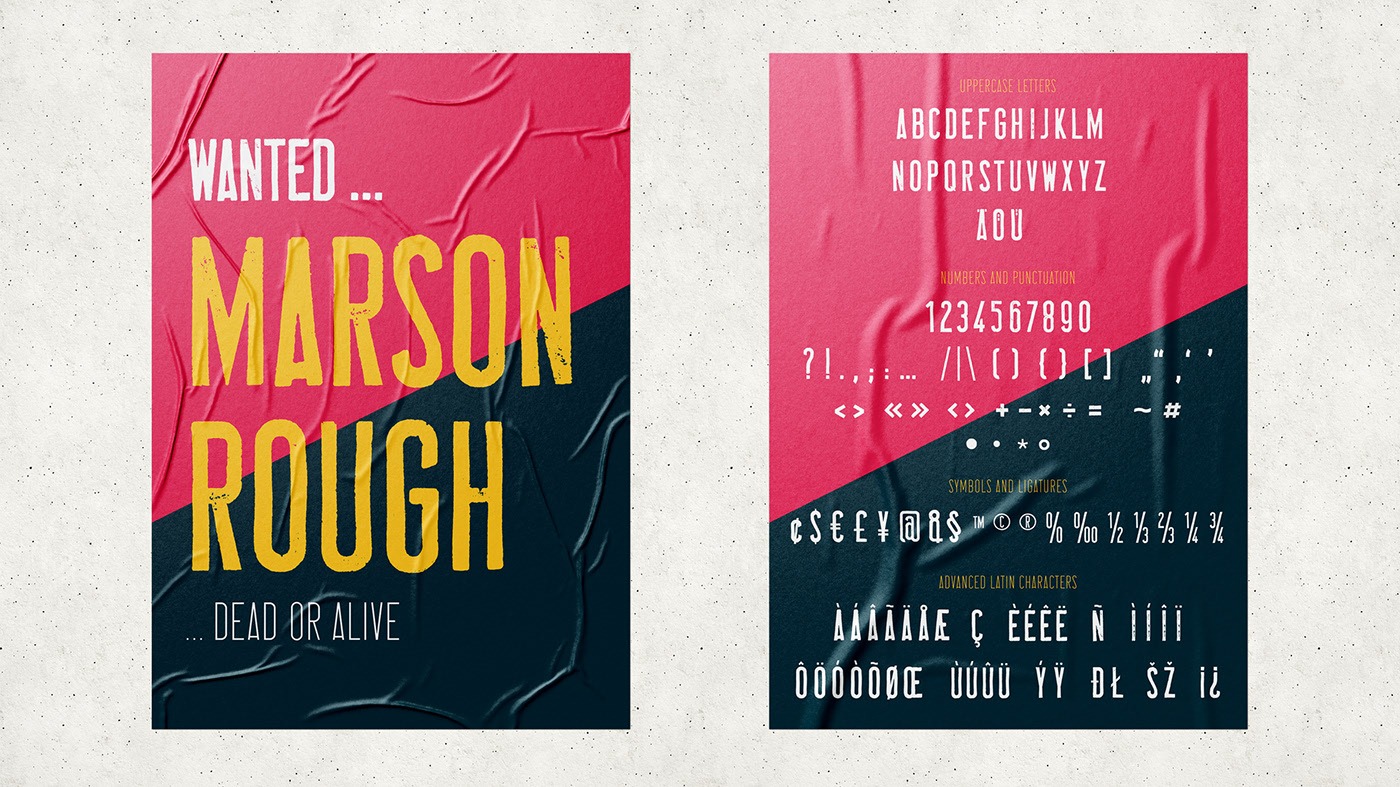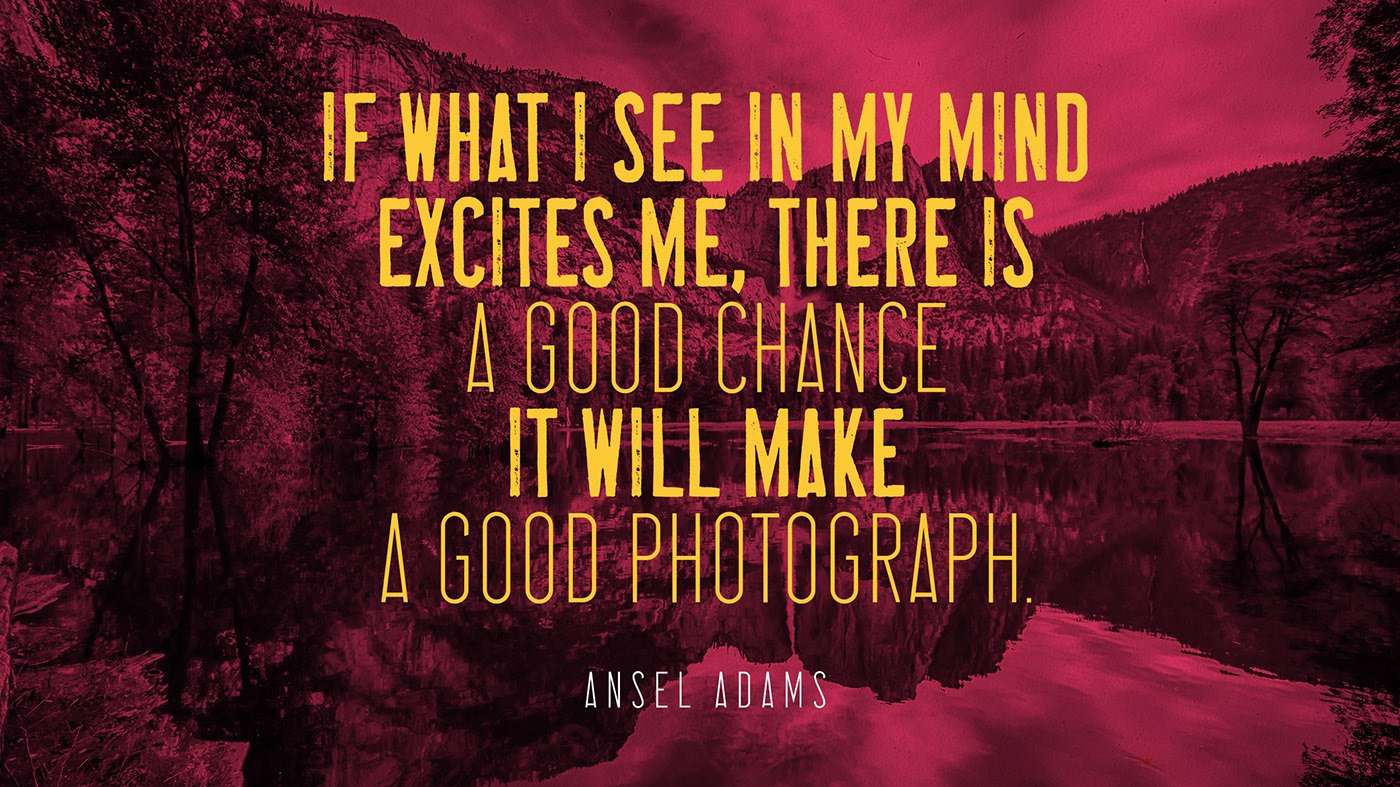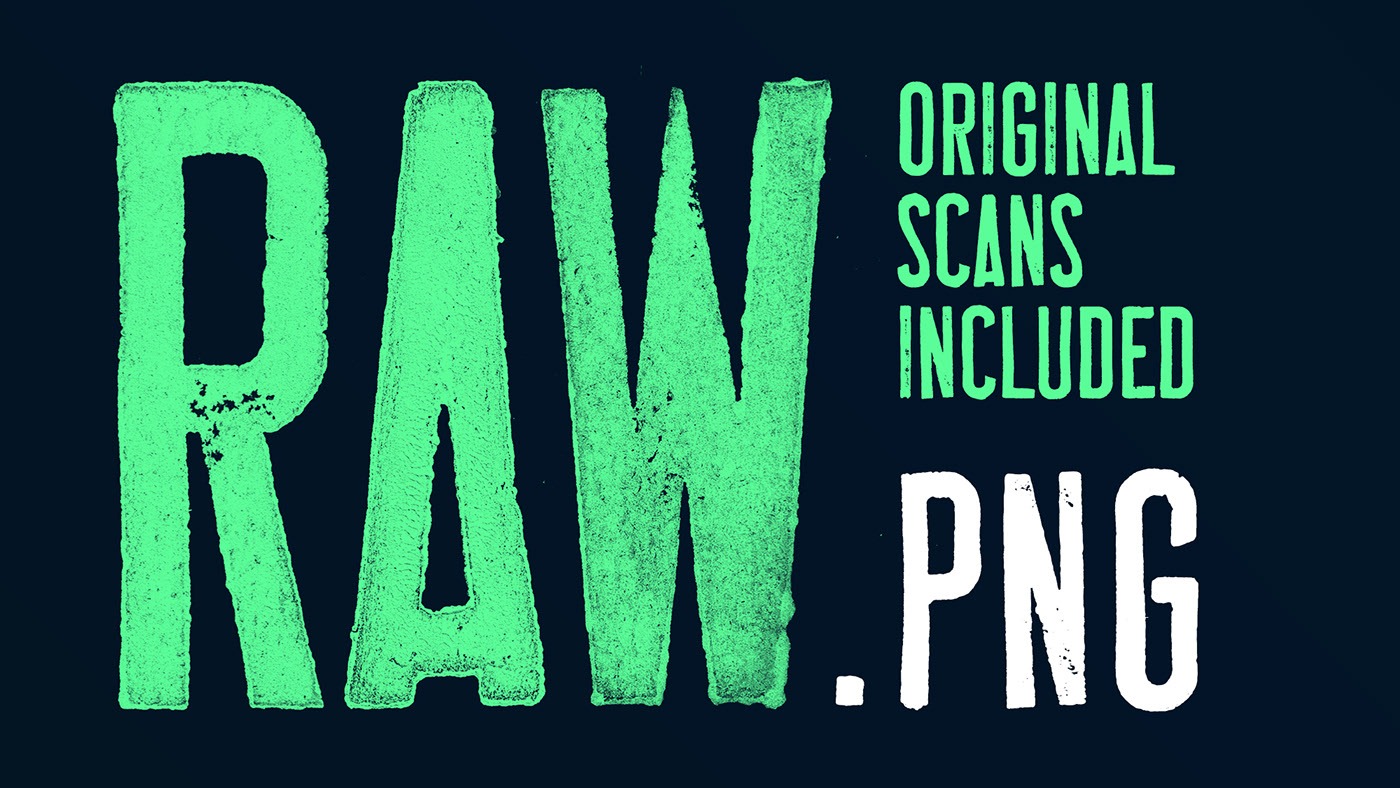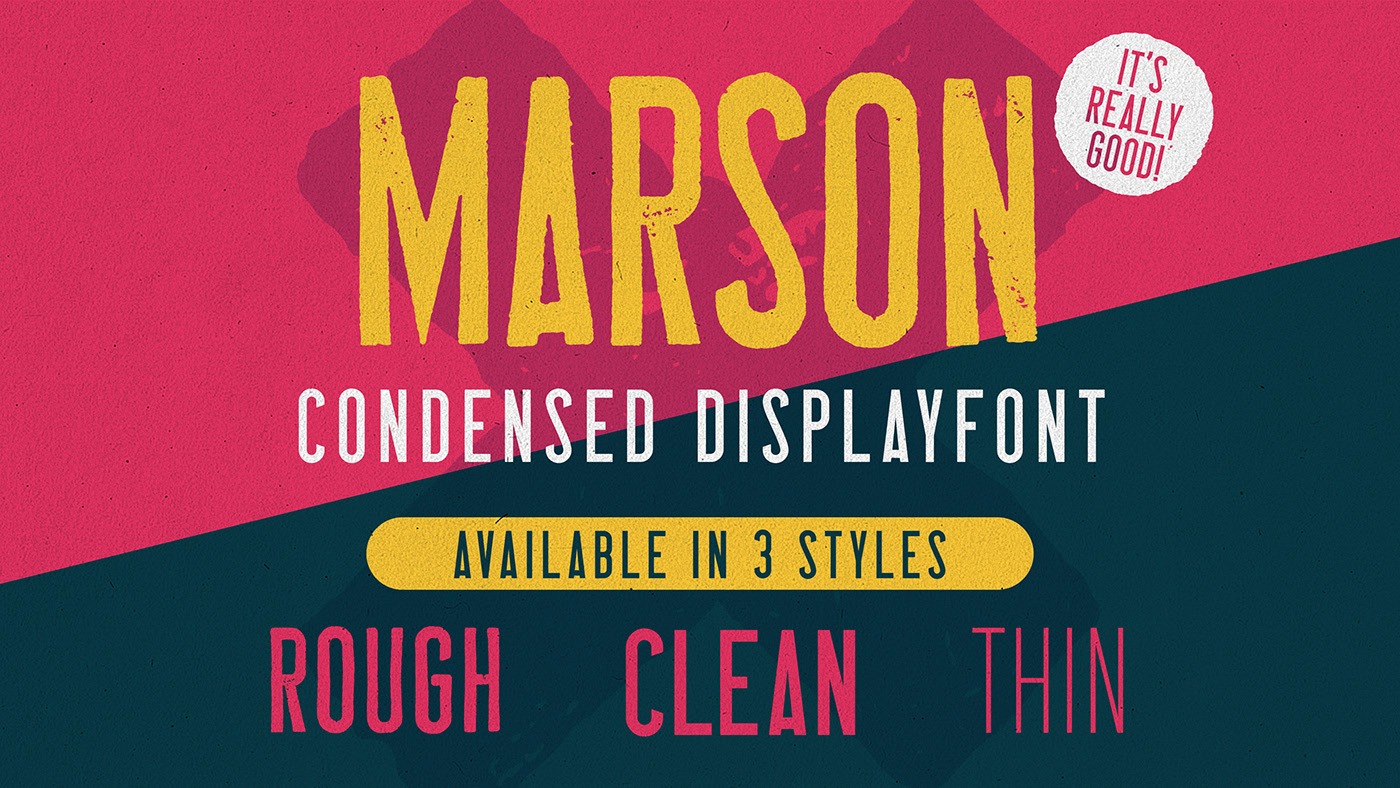
Marson Font
Marson Sans Serif Font
This is a display typeface created by Marcel Schönebeck with heavy bold style, inspired by pop culture in 80s century. Its bold stability transformes your creation into a non questionable design. It is bold, clear and also friendly thanks to its rounded corners. This font suitable for your design suh as packaging, poster, apparel, etc.